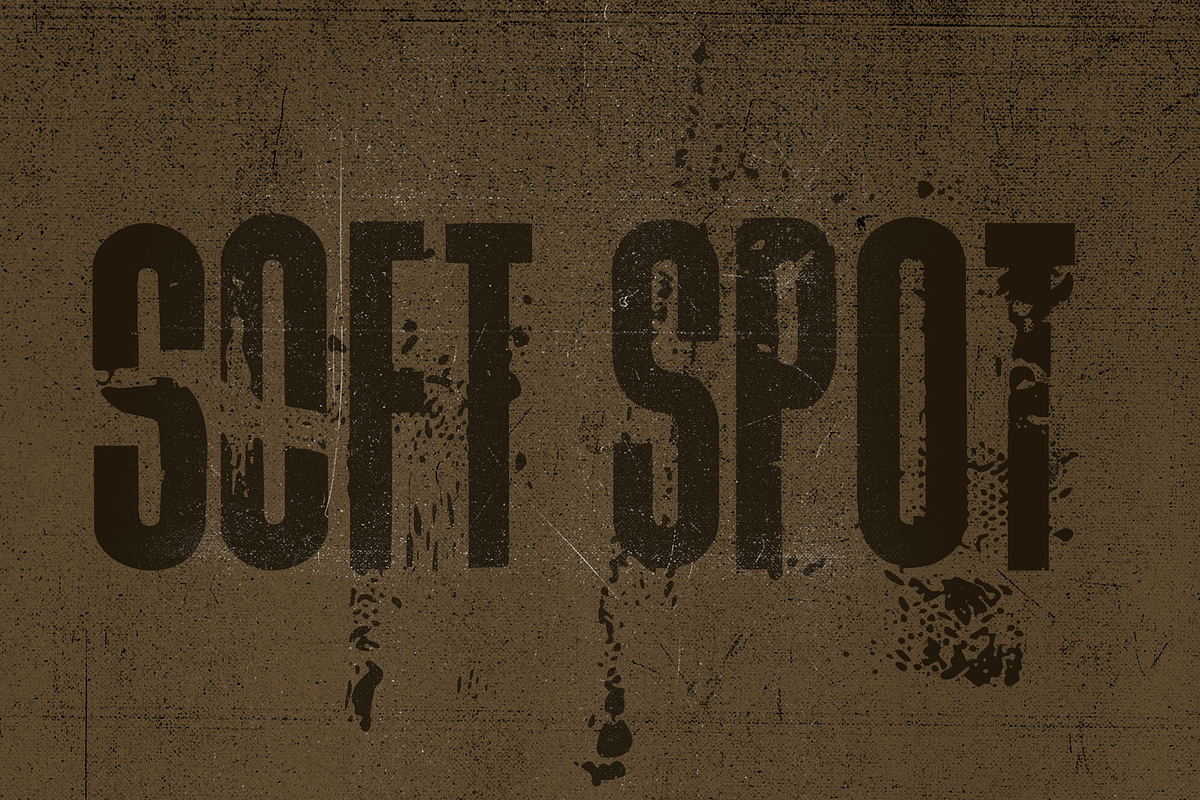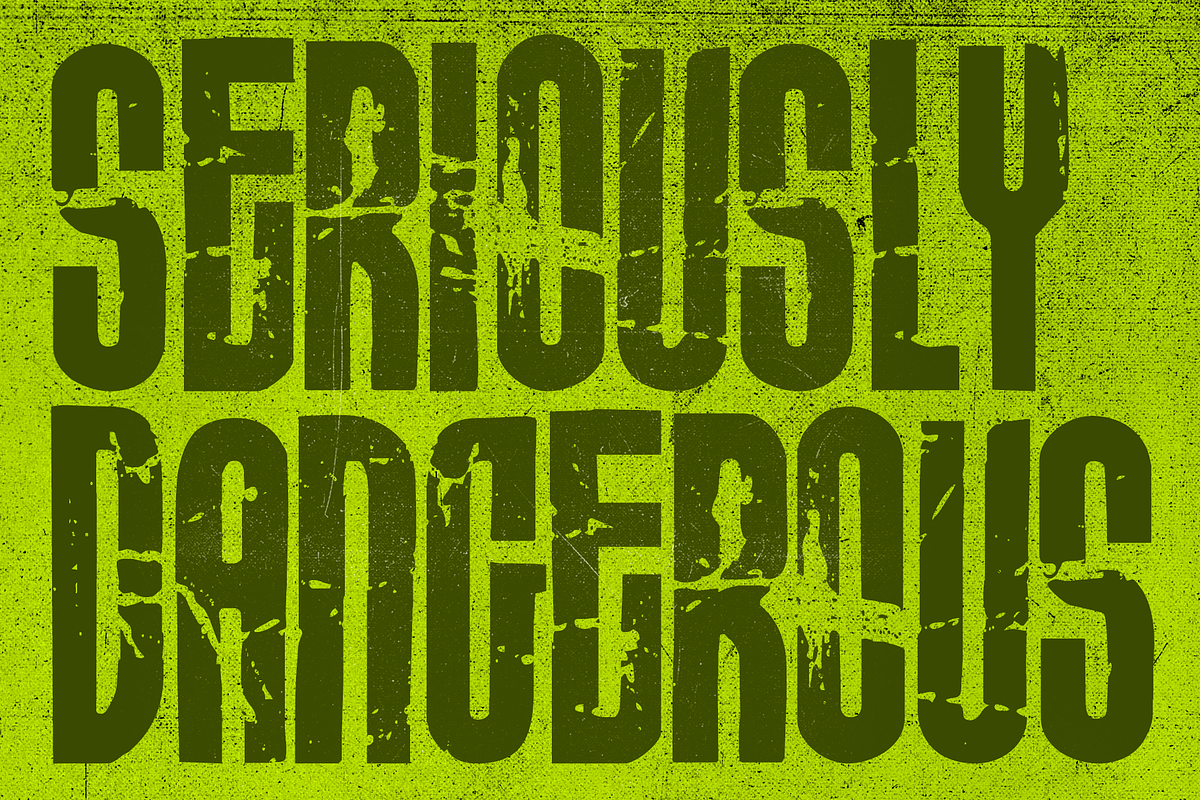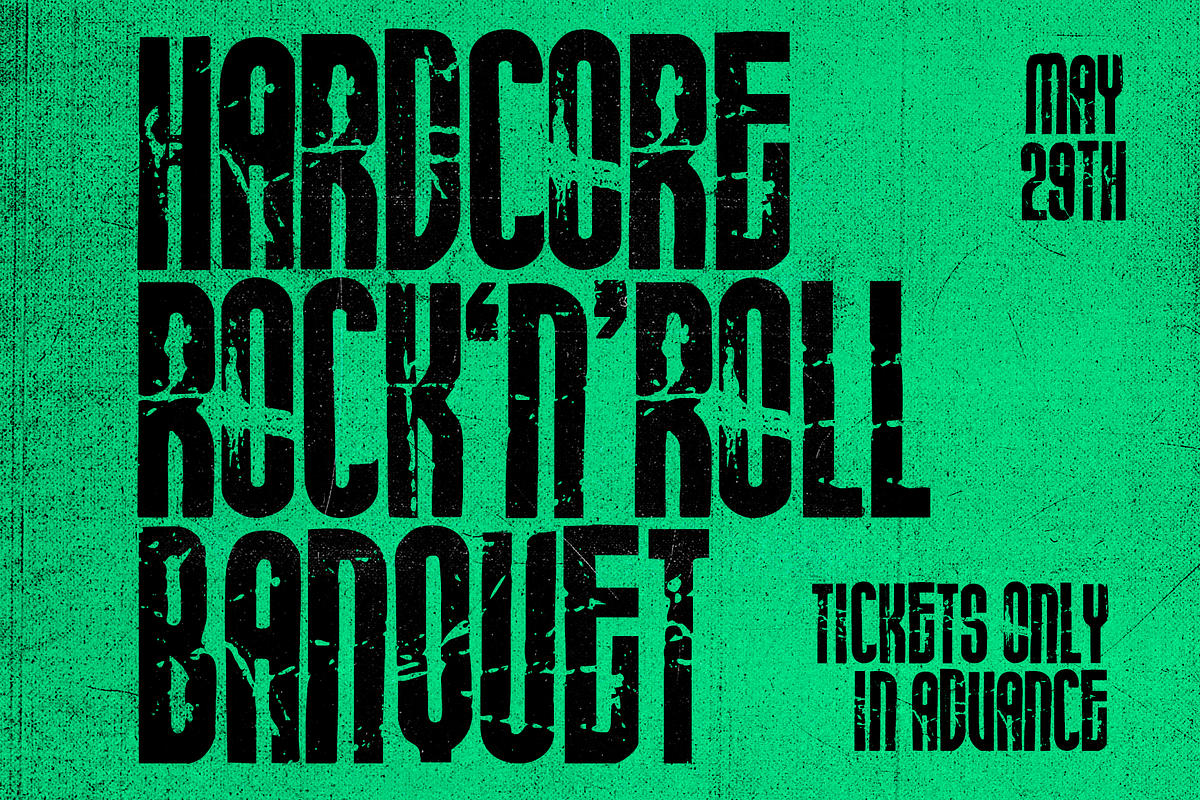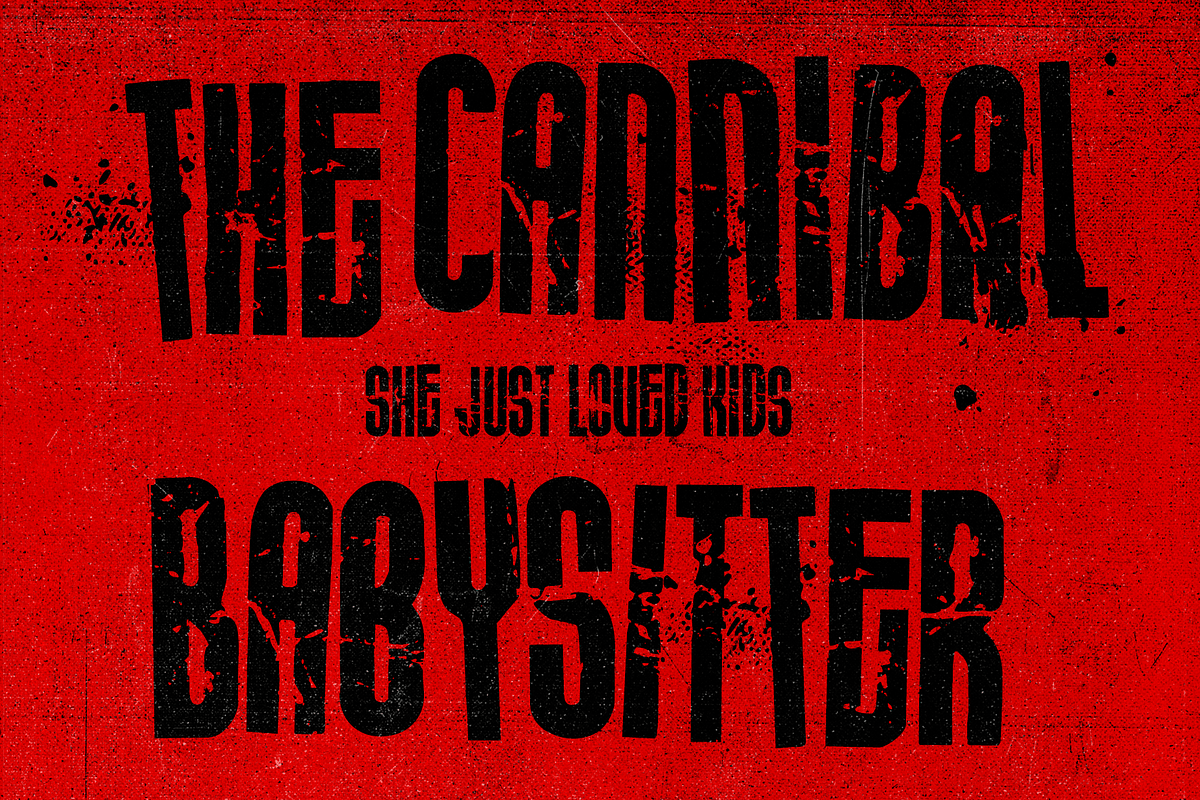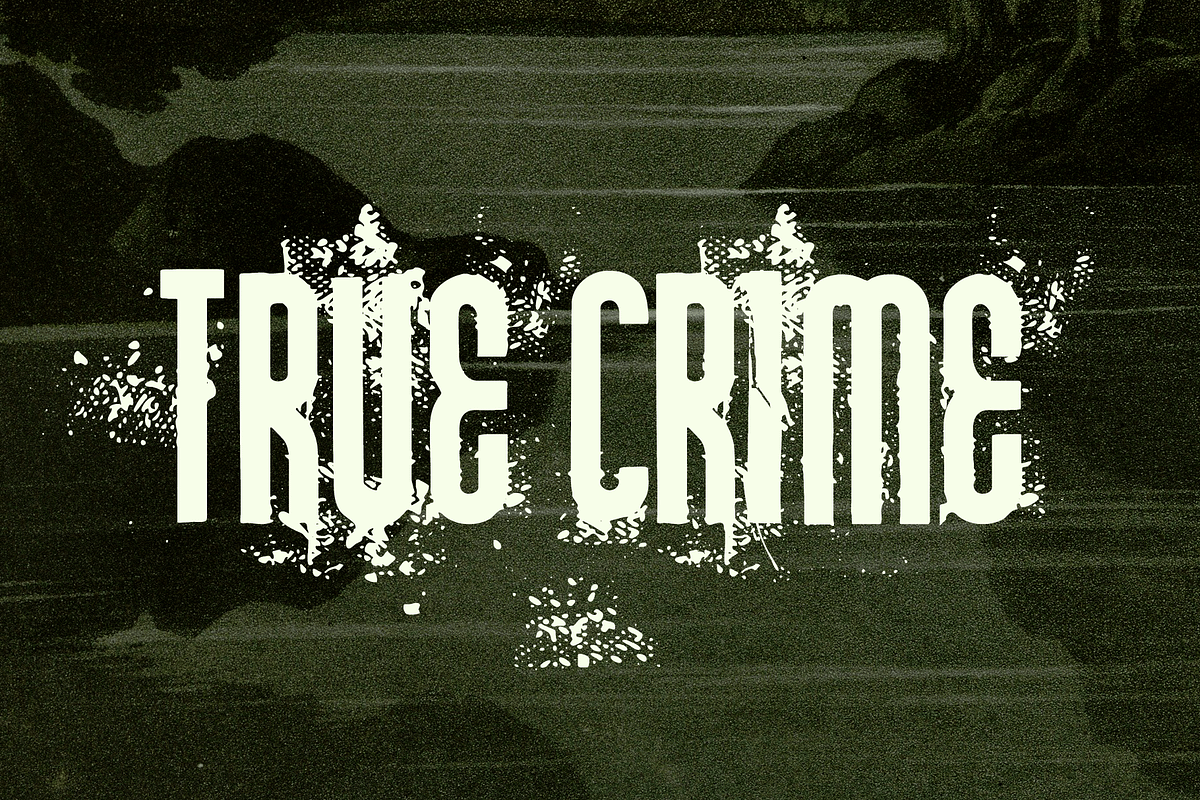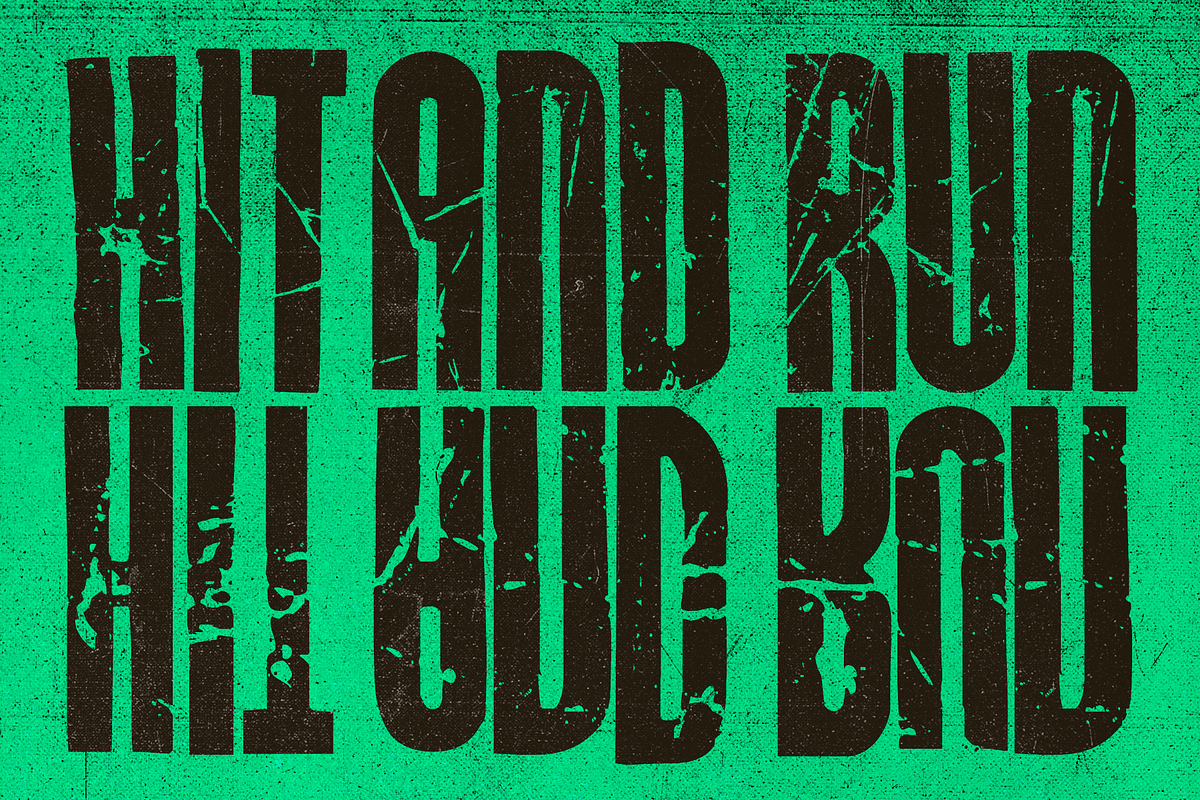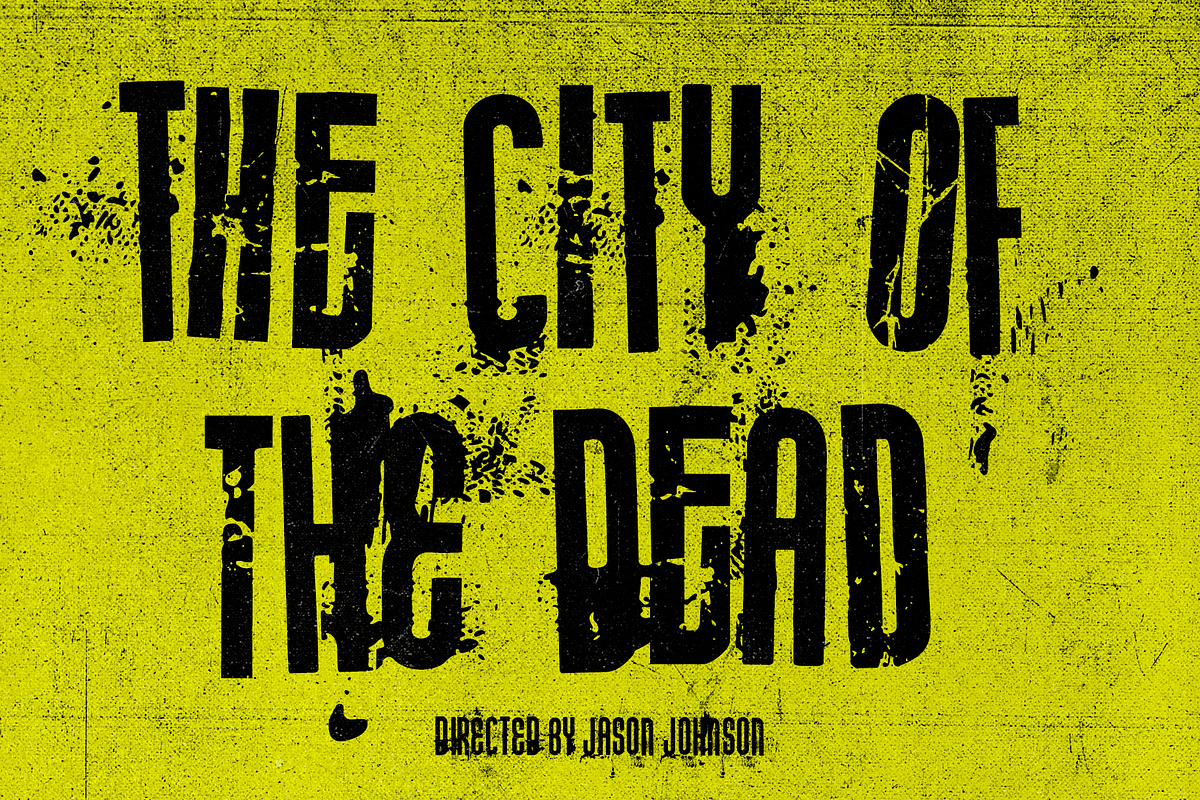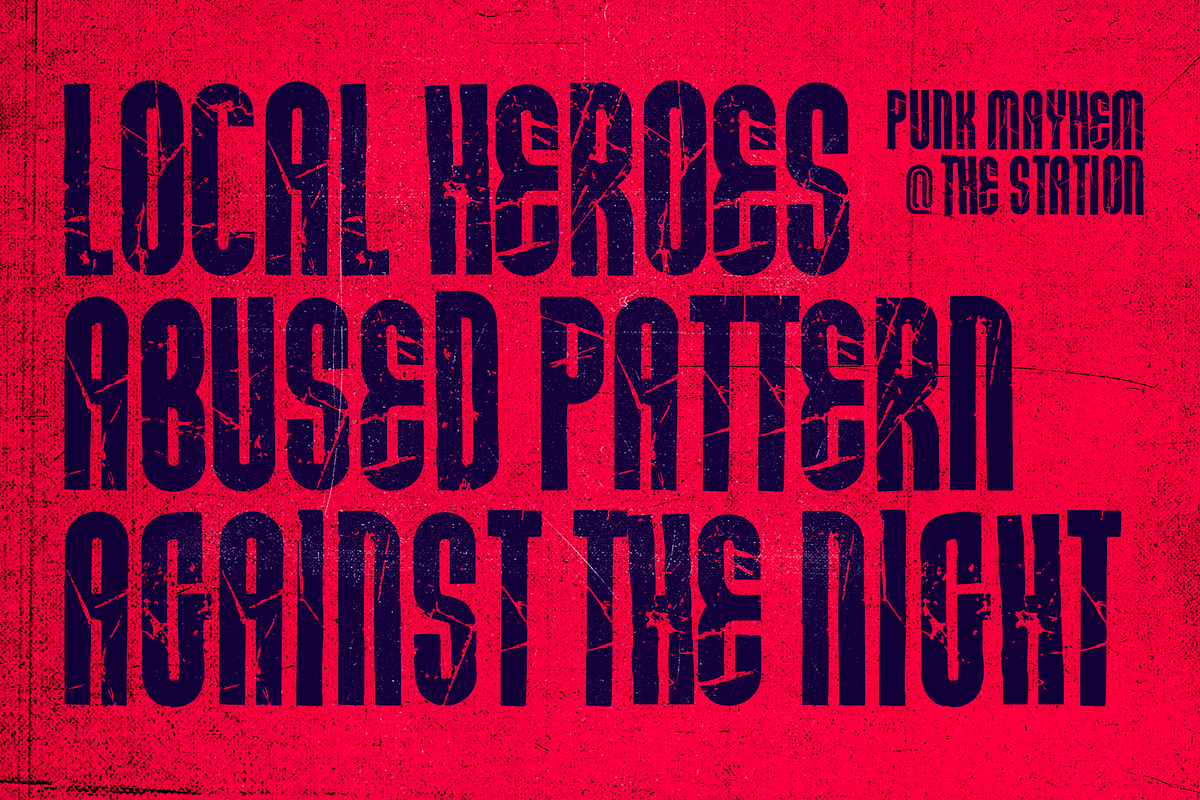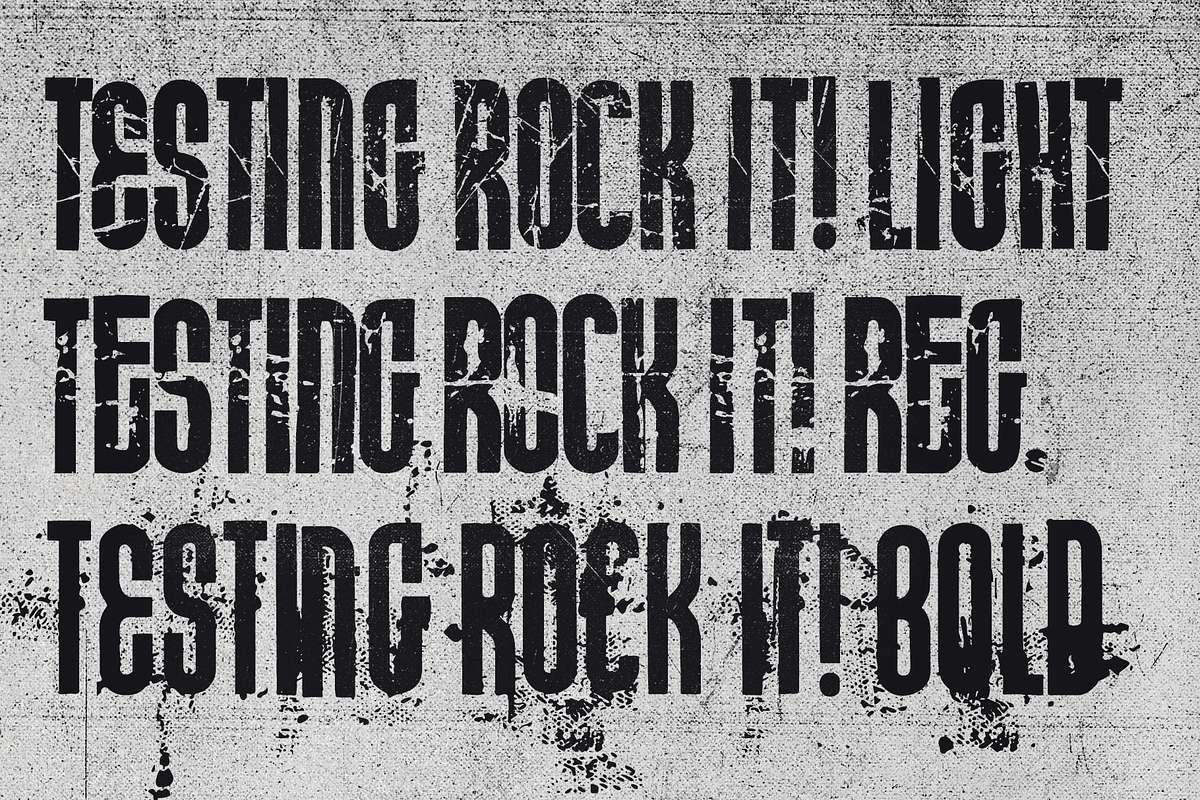
Rock It! -font trio
Rock it! is a type family that let's you create instant graphic design for any ROCK, PUNK, HARDCORE, HORROR and so on -gig, poster, logo, and whatever you need. Just type your texts and combine all the tree versions for authentic look!
Rock It! includes three ultra condensed sans fonts with different eroded textures and partially different letter shapes. Different versions of Rock It! are set as "Light," "Regular," and "Bold", where Light and Regular have eroded holes in them whereas Bold has "dirty print stains" all over the characters.